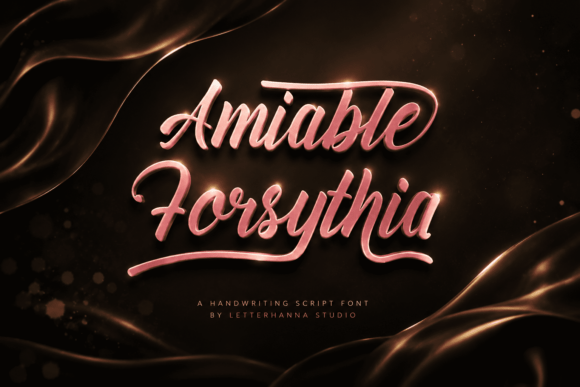
The Amiable Forsythia Font: A Joyful Script to Bring Heart to Your Designs
I’ll never forget the moment I stumbled upon the perfect font for a wedding invitation project. I had been searching for what felt like hours, scrolling through page after page of Google results, and my eyes were starting to glaze over. The client wanted something that captured the warmth and joy of the couple’s love story, but everything I found seemed either too formal or too bland. That’s when I discovered Amiable Forsythia – a bold, joyful handwriting script font that instantly brought the design to life.
Amiable Forsythia has quickly become one of my go-to fonts for designs that need a little extra heart. Here’s what I love:
- ✨ Warm and expressive: This font has a truly handmade feel, with each letter infused with personality and character.
- ✅ Perfect for weddings and branding: Amiable Forsythia is designed to bring joy and warmth to your designs, making it ideal for wedding stationery, boutique branding, and lifestyle creatives.
- 💫 Instantly lovable: The font’s bold, bouncy vibe is impossible to resist – it’s the perfect way to add some charm to your designs.
Of course, no font is perfect, and Amiable Forsythia does have a few small quirks:
- 🤔 Limited use in very small sizes: While the font looks amazing in larger sizes, it can become a bit tricky to read in very small sizes (think 8pt or smaller).
- ⚠️ Some letter combinations may require manual kerning: As with any script font, you may need to adjust the kerning on certain letter combinations to get the best results.
The Story Behind Amiable Forsythia
Amiable Forsythia was born from a love of expressive, ink-on-paper lettering. The font’s creator is a passionate typographer who wanted to capture the warmth and personality of handwritten notes in a digital font. With Amiable Forsythia, they aimed to create a font that would bring joy and heart to designs – and I think they’ve succeeded!
| Q: What type of designs is Amiable Forsythia best suited for? | A: Amiable Forsythia is perfect for designs that need heart, such as wedding stationery, branding, and lifestyle creatives. |
| Q: Is Amiable Forsythia available in different weights or styles? | A: Currently, Amiable Forsythia is available in a single weight, but the font’s creator may release additional weights or styles in the future. |